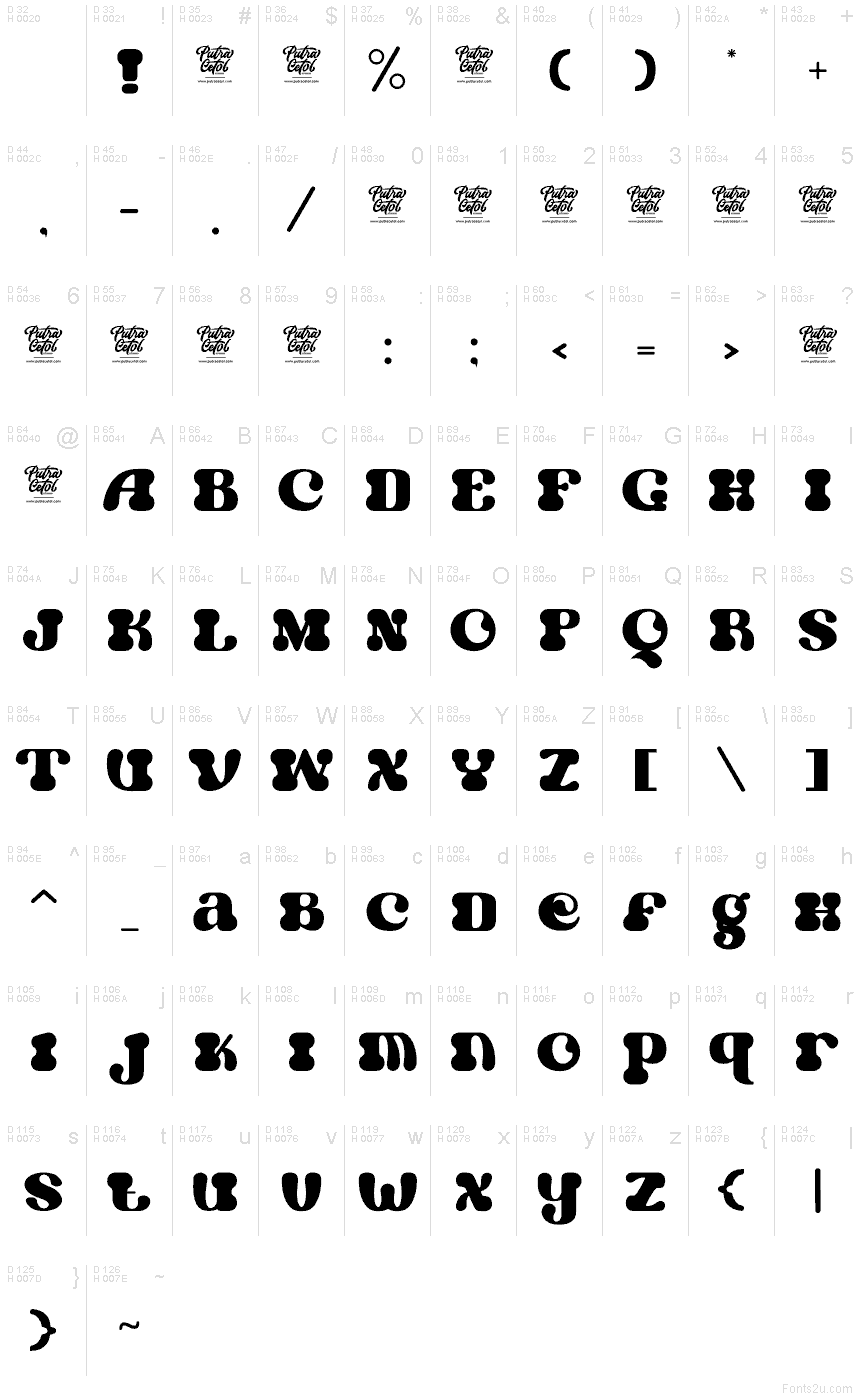
The Gold Ring
The Gold Ring font by PutraCetol Studio combines a retro aesthetic with expanded and playful letters. This free display font has whimsical beauty, making it excellent for combining organic shapes, high contrast, bold presence, and old-school typography within one style.
Use it to enrich your headlines and titles and on packaging designs such as cosmetic products or snacks. Premium perfume bottle labels will shine in its typeface while the font can also be integrated into websites (homepages) that focus on fashion or other lifestyle-related themes. Alongside apparel design on t-shirts for example, this font is home in so many other cases so don’t let anything stop you from pushing the limits of your creativity!